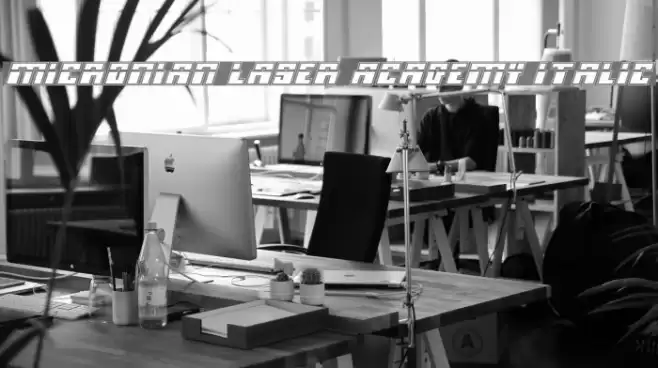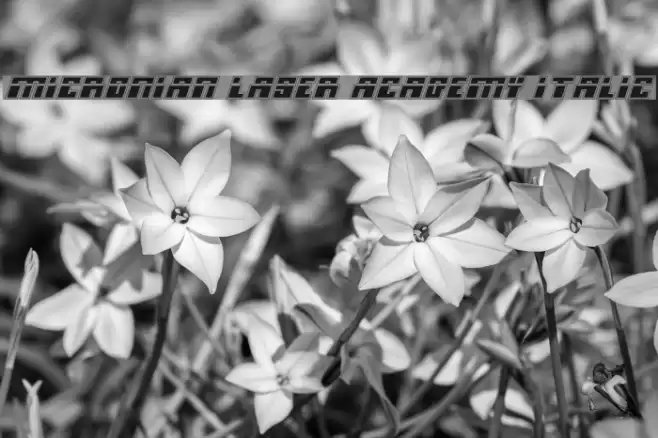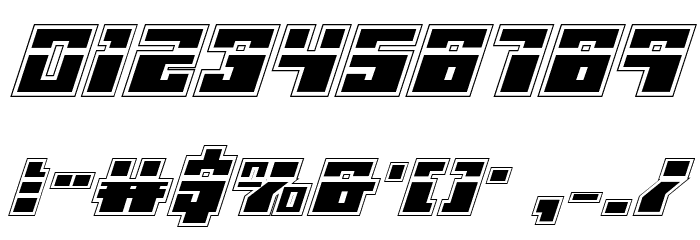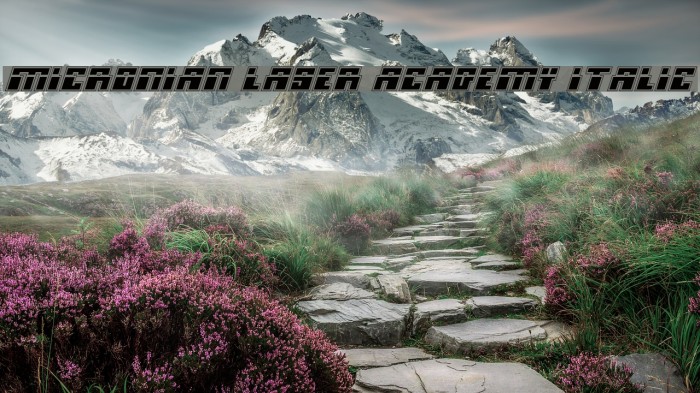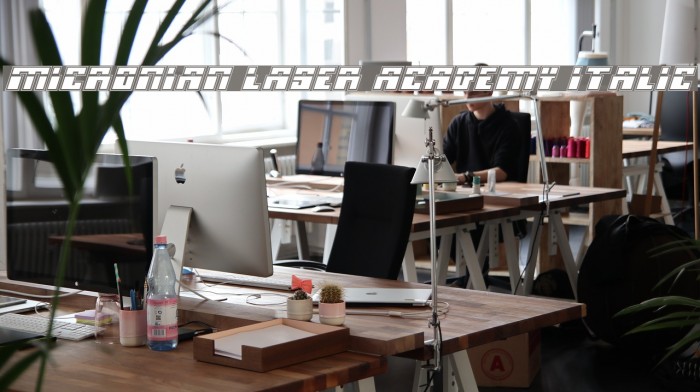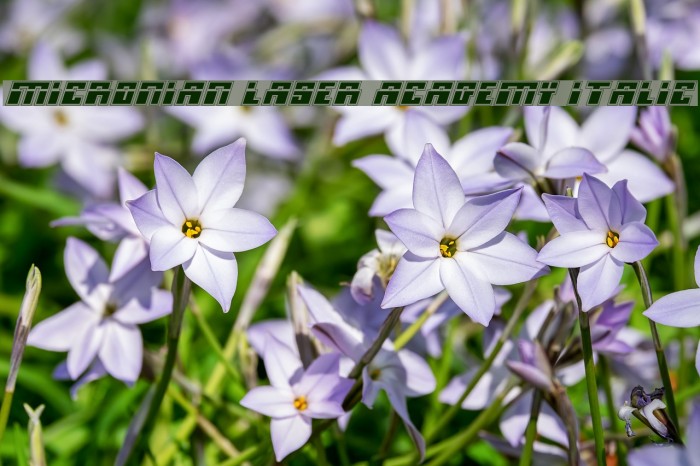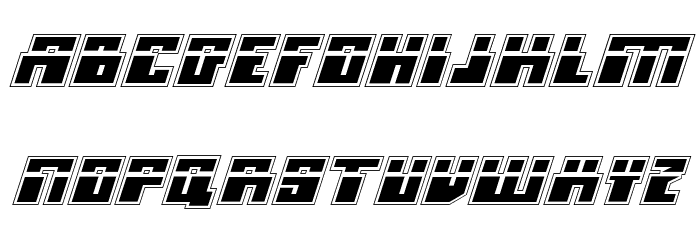
Micronian Laser Academy Italic Font
Micronian Laser Academy Italic Description
This font features a futuristic and bold design with a distinct italic slant, giving it a dynamic and energetic appearance. The characters are constructed with sharp angles and geometric shapes, creating a sense of movement and speed. The font has a strong presence, making it suitable for attention-grabbing headlines and titles. The uppercase and lowercase letters maintain a consistent style, while the numerals and special characters complement the overall design. The font's unique style is reminiscent of sci-fi themes, making it ideal for projects that require a modern and technological aesthetic.
A bold, futuristic italic font with sharp angles and a dynamic style from Uncategorized fonts.
- Proposed Projects: Ideal for sci-fi themed projects, video game titles, tech branding, and futuristic posters.
- Overall Style: Futuristic, Dynamic